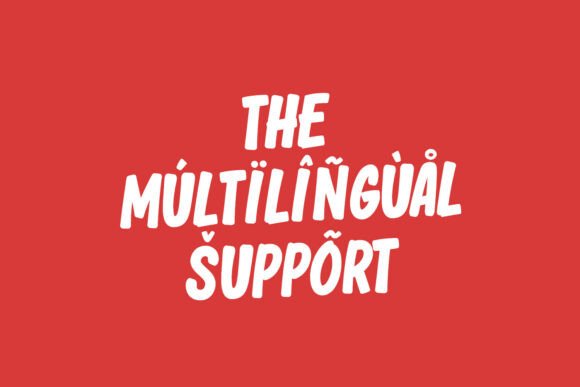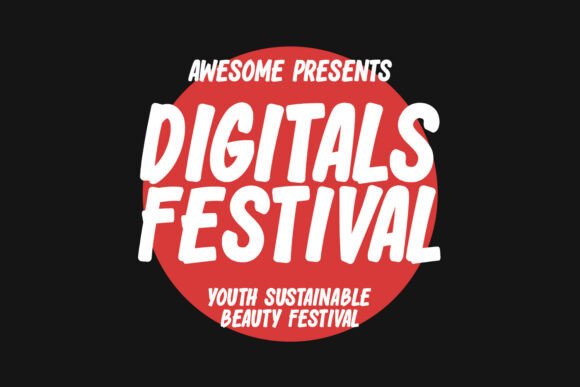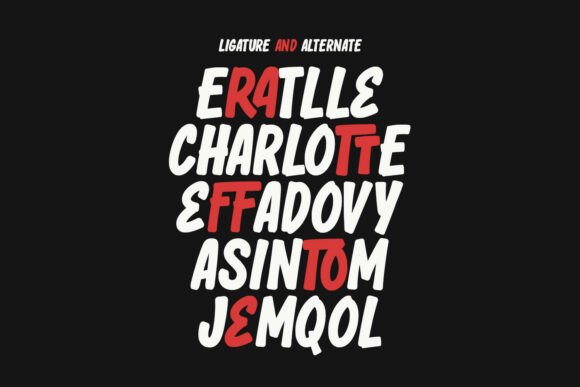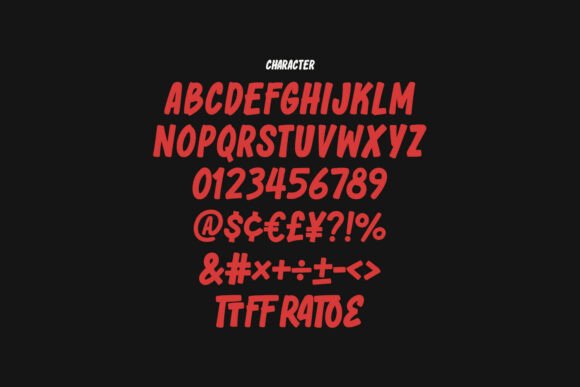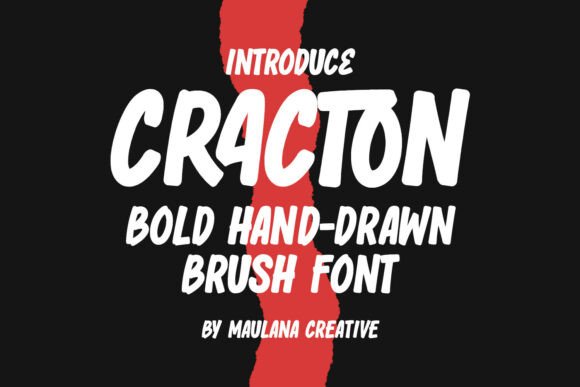
Unleash the Boldness with Cracton: The Ultimate Hand-Drawn Brush Display Font
In the world of design, fonts play a crucial role in conveying the tone and personality of a brand or project. If you’re looking for a font that exudes energy, spontaneity, and a rebellious attitude, look no further than Cracton. This authentic, hand-drawn brush display font is designed to give your projects a bold, raw, and impactful feel that’s sure to grab attention.
The Unique Charm of Cracton
Cracton boasts chunky, expressive strokes and slightly imperfect lines that capture the essence of real brush lettering. Its hand-drawn nature gives it a unique, organic feel that’s perfect for designs that demand a vibrant and dynamic look. Whether you’re working on a marketing campaign, a music album cover, or a social media graphic, Cracton is the perfect choice for designers and crafters who want to add a bold, personal touch to their work.
Ideal Use Cases for Cracton
Cracton’s versatility makes it suitable for a wide range of design projects. Here are some ideal use cases for this powerful font:
- High Impact Marketing: Use Cracton for posters, flyers, banners, and sale promotions to create eye-catching and attention-grabbing marketing materials.
- Merchandise & Apparel: Add a bold, rebellious touch to t-shirts, hoodies, and brand logos with Cracton’s chunky, expressive strokes.
- Food & Beverage Branding: Give your quirky cafe, food truck, or craft brand a unique and memorable identity with Cracton’s hand-drawn charm.
- Music & Events: Create stunning album covers, festival branding, and concert posters with Cracton’s energetic and vibrant feel.
- Quotes & Social Media Graphics: Add a personal touch to inspirational quotes and viral content with Cracton’s bold, hand-drawn style.
Why Choose Cracton?
With Cracton, you can:
- Add Energy and Impact: Give your designs a bold, raw energy that’s sure to grab attention.
- Stand Out from the Crowd: Cracton’s unique, hand-drawn style ensures that your designs will stand out from the crowd.
- Convey Confidence and Rebellion: Use Cracton to convey a confident, rebellious attitude that’s perfect for brands and projects that want to make a statement.
Key Features of Cracton
- Authentic, Hand-Drawn Design: Cracton is a genuine, hand-drawn brush display font that captures the spontaneity of real brush lettering.
- Chunky, Expressive Strokes: Cracton’s bold, chunky strokes are perfect for designs that demand attention and a vibrant, rebellious attitude.
- Slightly Imperfect Lines: Cracton’s slightly imperfect lines add to its unique, organic feel and make it perfect for designs that want to convey a sense of raw energy.
In conclusion, Cracton is the ultimate hand-drawn brush display font for designers and crafters who want to add a bold, personal touch to their projects. With its unique charm, versatility, and powerful energy, Cracton is sure to become a go-to font for anyone looking to make a statement. So don’t wait – get Cracton today and unleash the boldness in your designs!